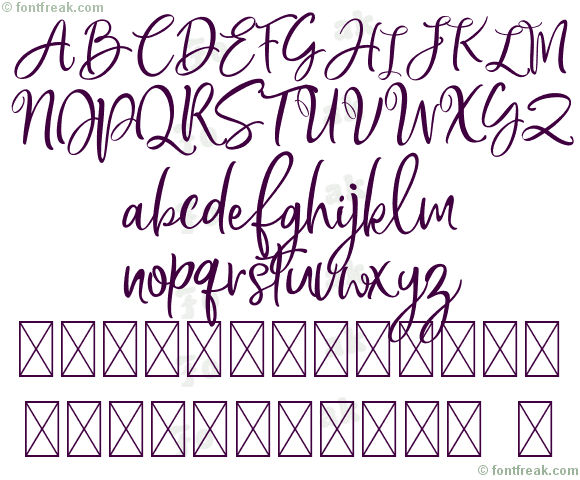
Bread Store
About Bread Store
The Bread Store font, crafted by Burhan Afif in 2019, is a delightful display typeface that beautifully captures the essence of warmth and charm, making it perfect for a variety of creative projects. This font features a unique handwritten style that mimics the fluidity and spontaneity of natural handwriting, providing an inviting and friendly vibe. The strokes are moderately thick, with a balanced contrast that adds character without overwhelming the reader. The generous spacing between letters enhances readability, making it suitable for both large and small text applications.
With its playful yet elegant appearance, the Bread Store font is ideal for use in contexts such as artisanal bakery branding, cozy café menus, and vibrant food packaging. It also shines in creative applications like wedding invitations, where its charming style can evoke a sense of intimacy and personal touch. Graphic designers and small business owners will find this font particularly useful when aiming to establish a warm and welcoming atmosphere in their visual communications.
What sets the Bread Store font apart is its ability to blend a casual, handwritten aesthetic with a polished finish, making it versatile enough for both personal and professional designs. Whether you're creating promotional materials for a local bakery or designing a heartfelt greeting card, this font adds a touch of creativity and warmth, ensuring your message resonates with your audience. Its distinctive style makes it a standout choice for any design project that aims to capture the essence of comfort and approachability.